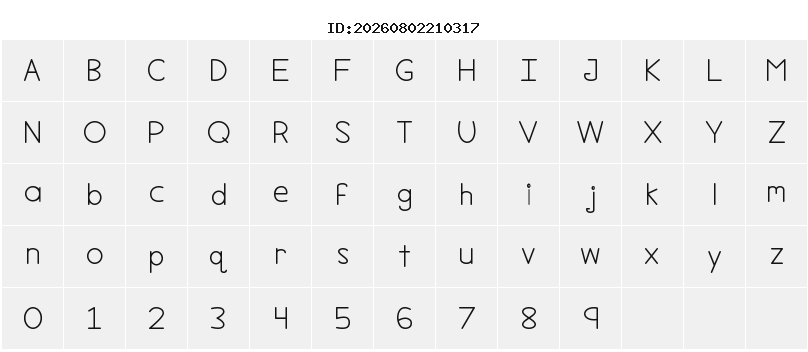
• Font Name: Northern Lights
• Designer: MiffinFonts
About Northern Lights.ttf
Northern Lights.ttf is a modern, elegant sans-serif font designed for ultimate readability and visual harmony. Perfect for branding, headlines, web design, and print materials.